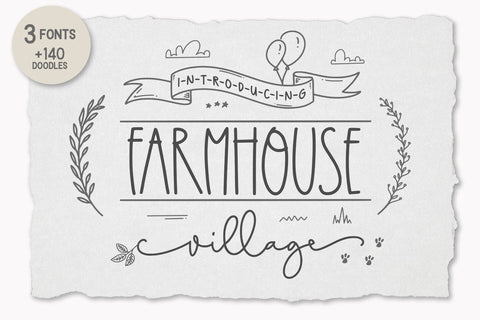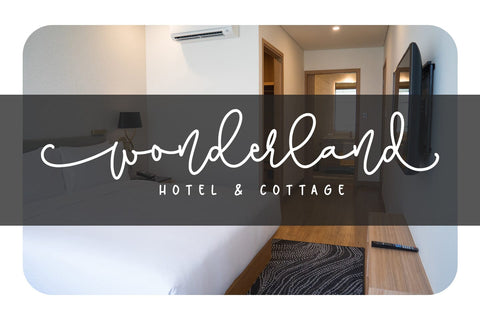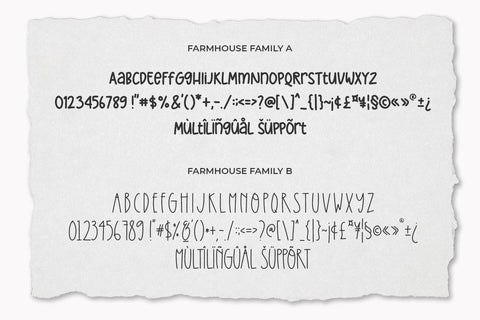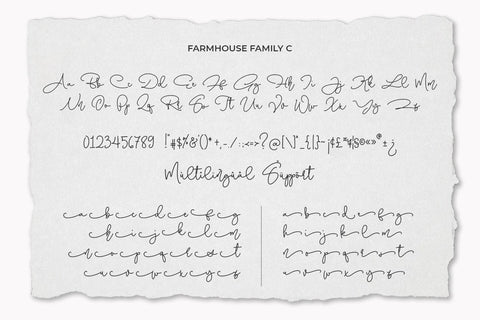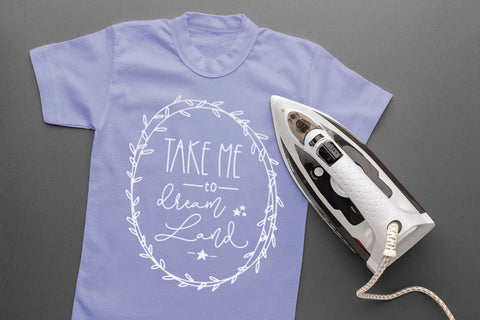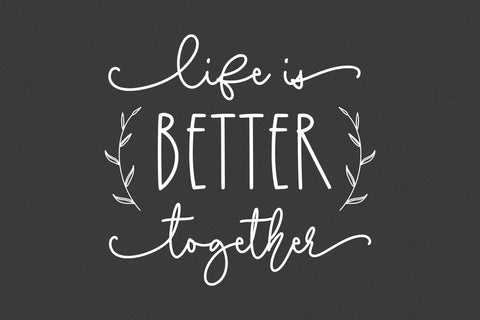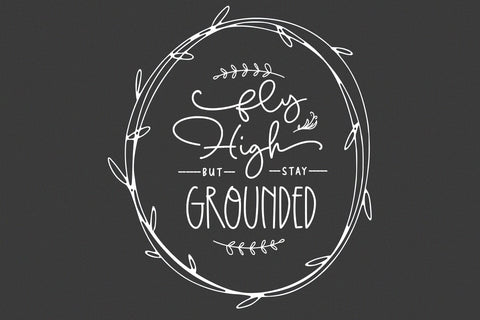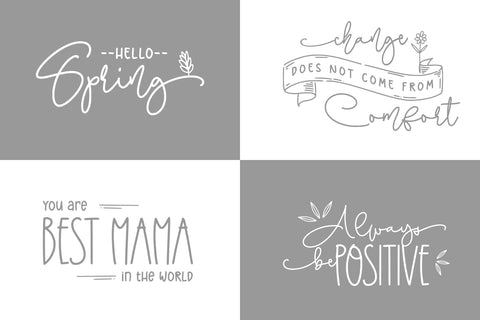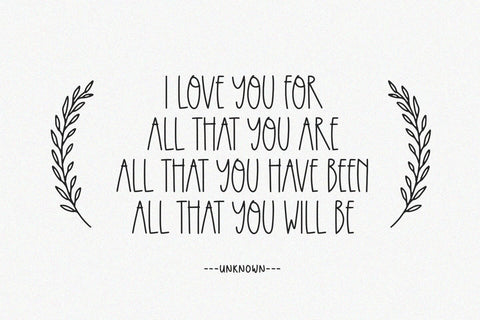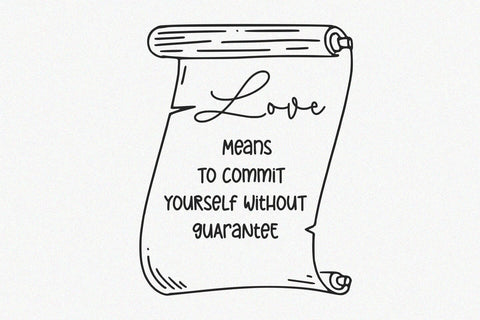
Farmhouse Village
introducing
FARMHOUSE VILLAGE
- quirky font trio with doodles -
FARMHOUSE VILLAGE is great for quotes, t-shirt designs, mugs, tote bag designs, cards, banners, social media, and anything of craft projects that needs a natural touch.
This product came in 3 styles of typeface. Sans-serif, Condensed Sans-Serif, and Script.
The doodles make this product complete.
- Numeral
- Punctuation
- Multilingual
- Swash
- Doodles
Abo Daniel Studio